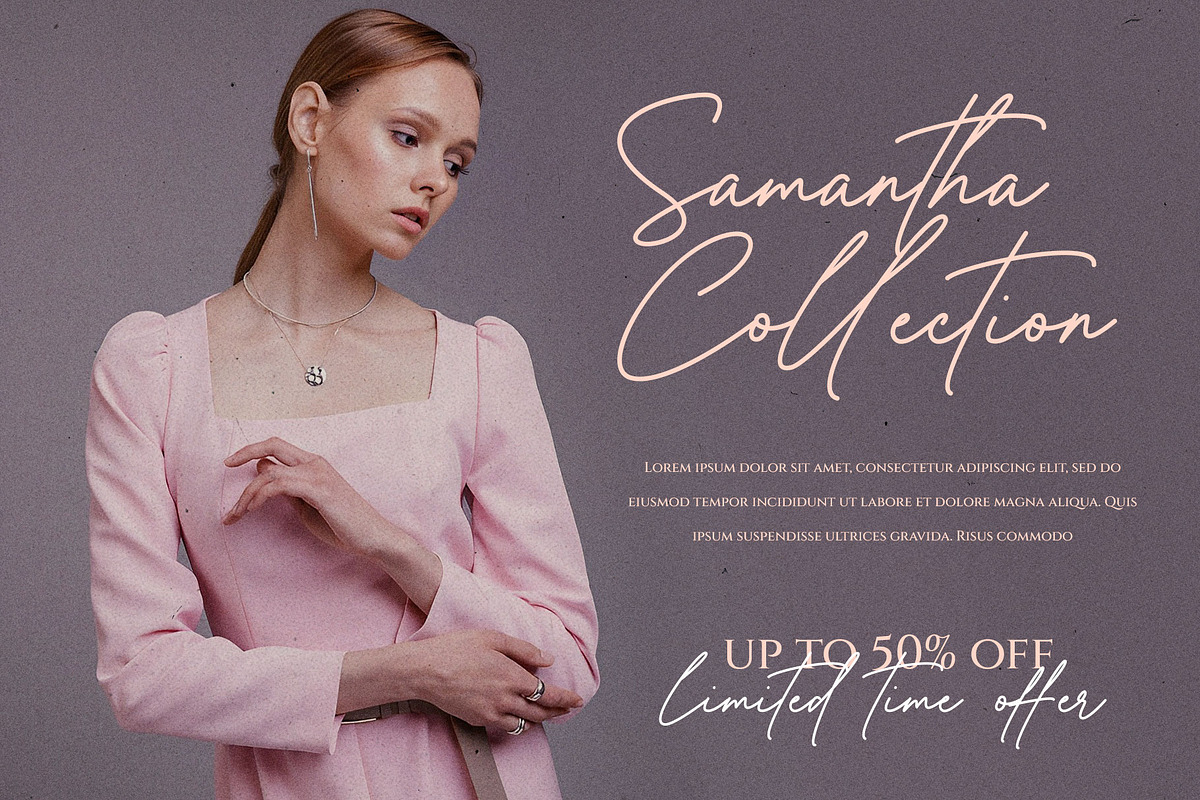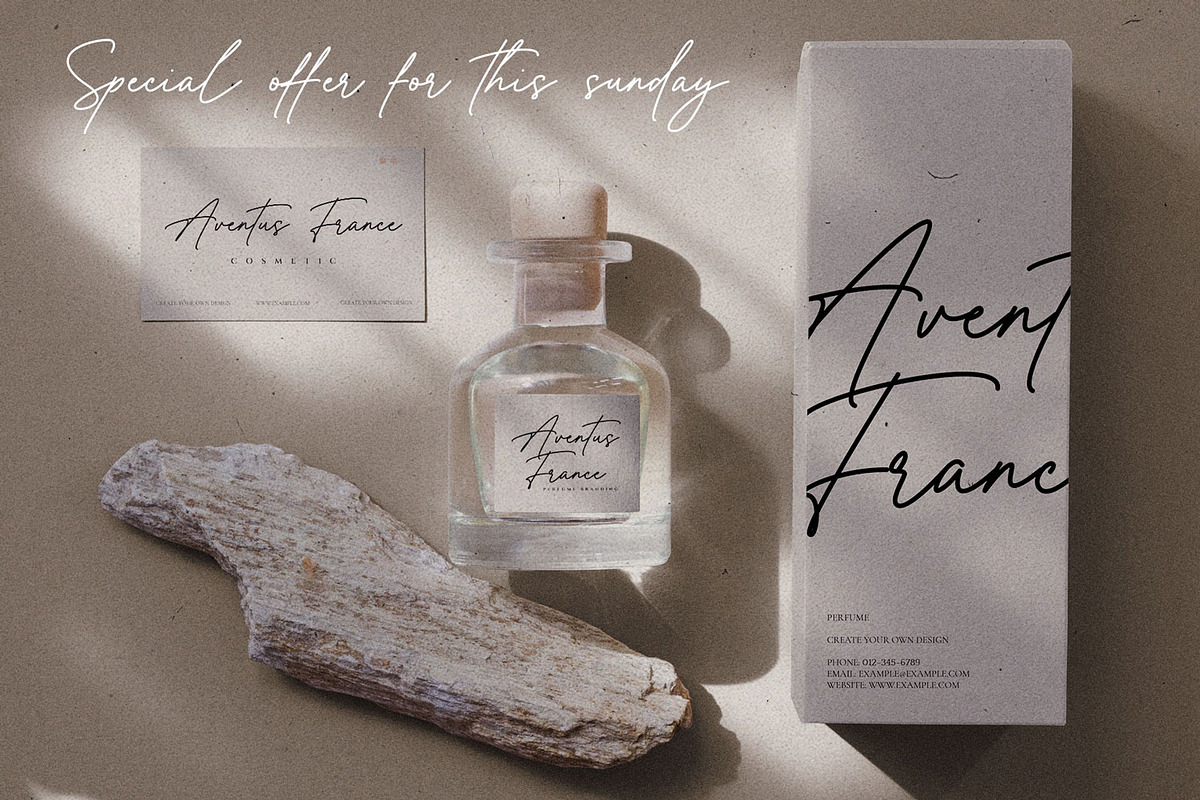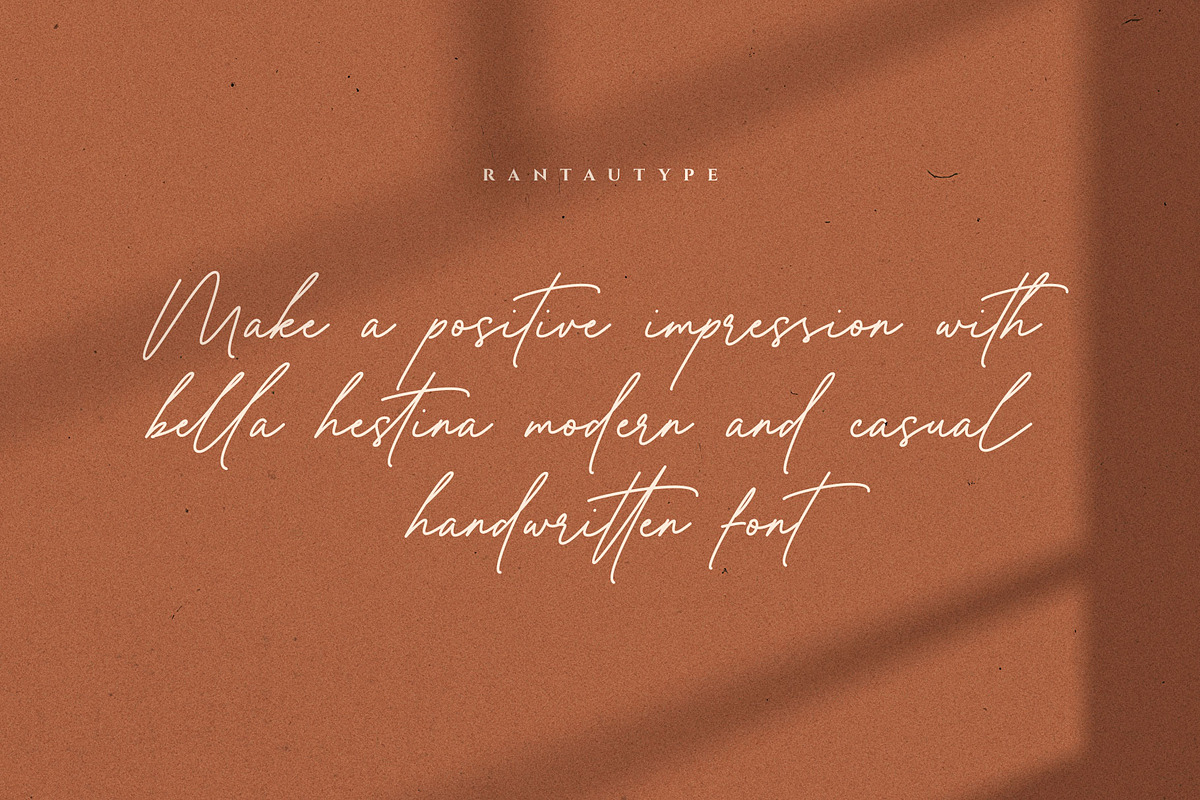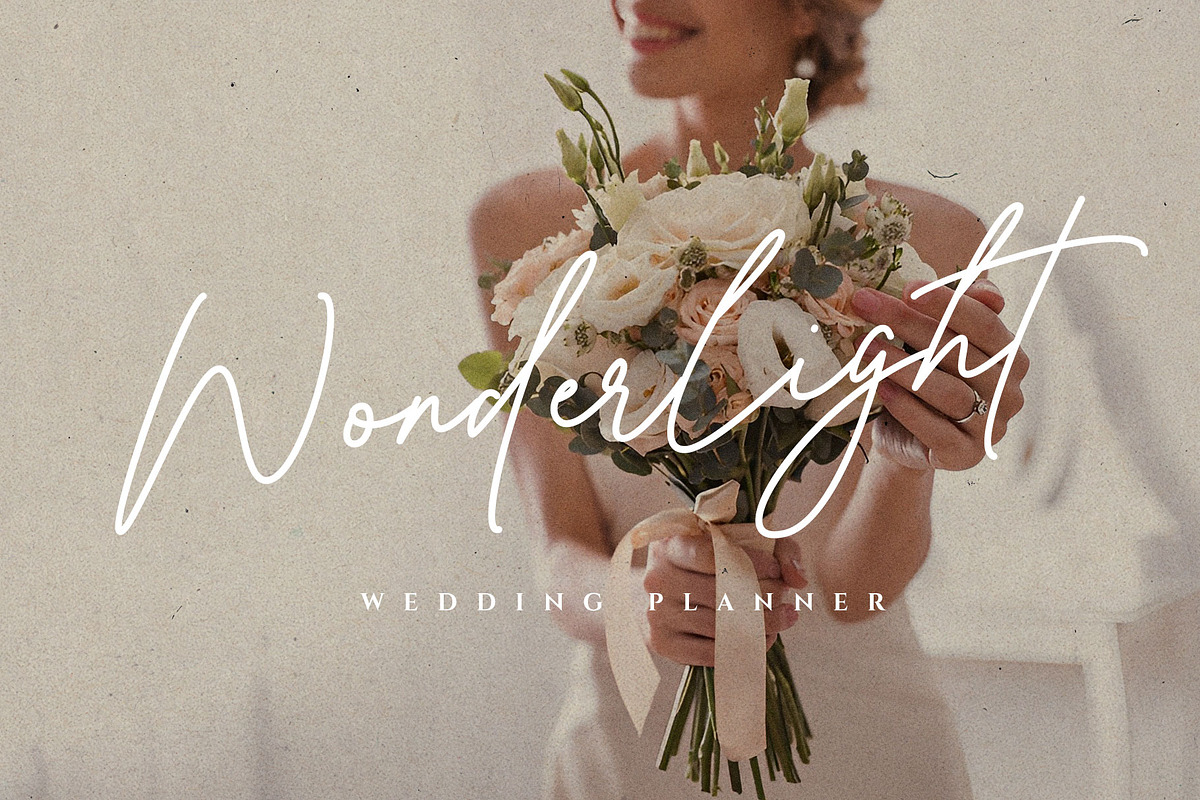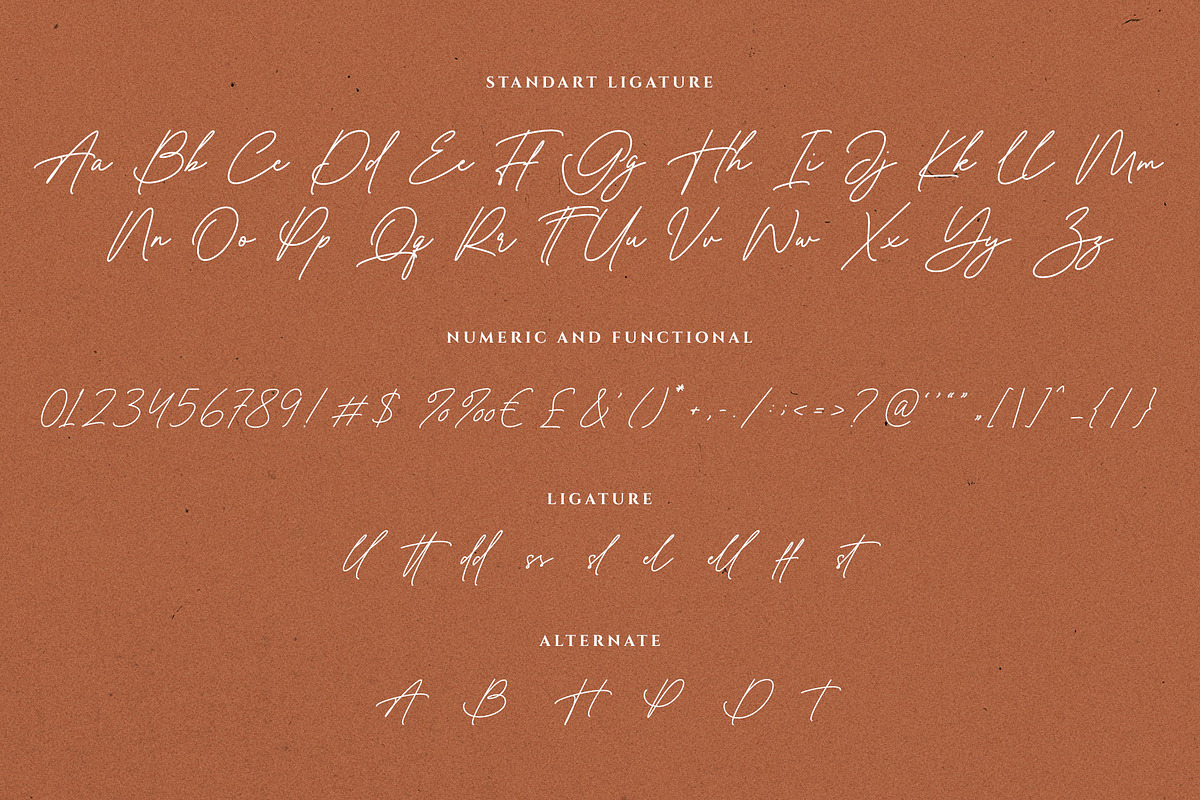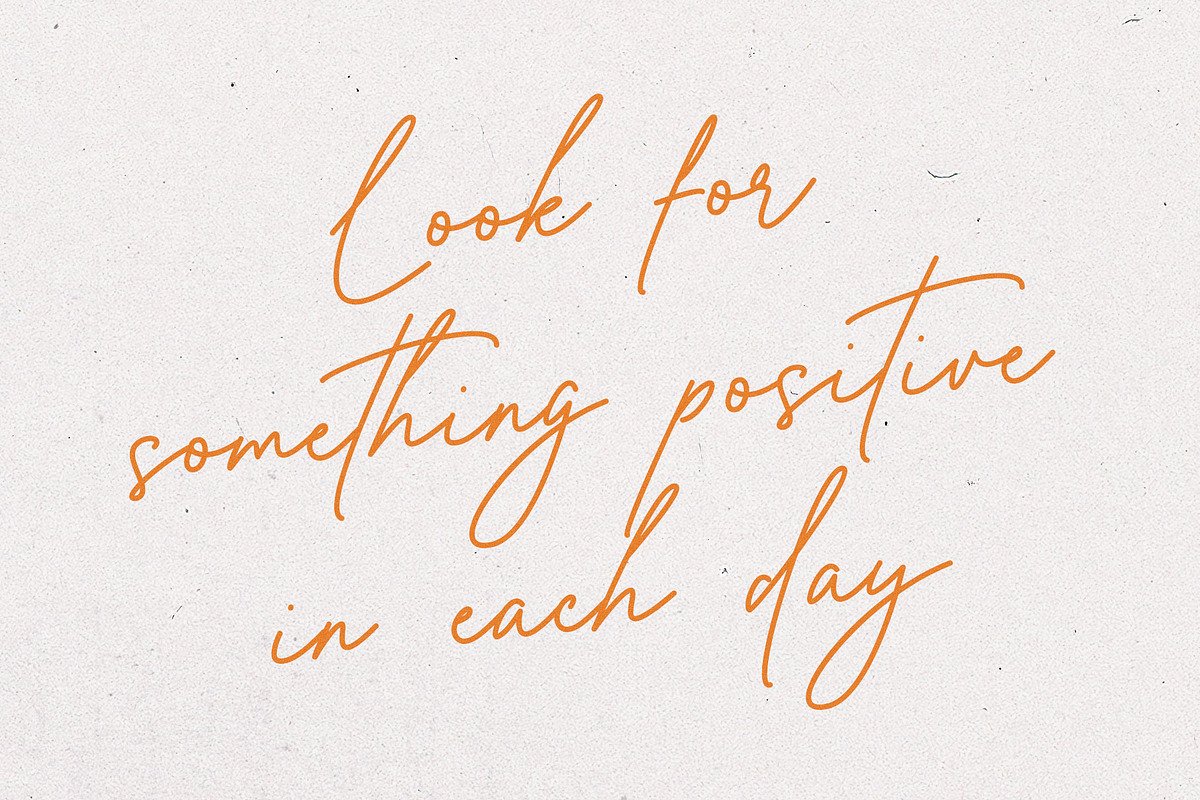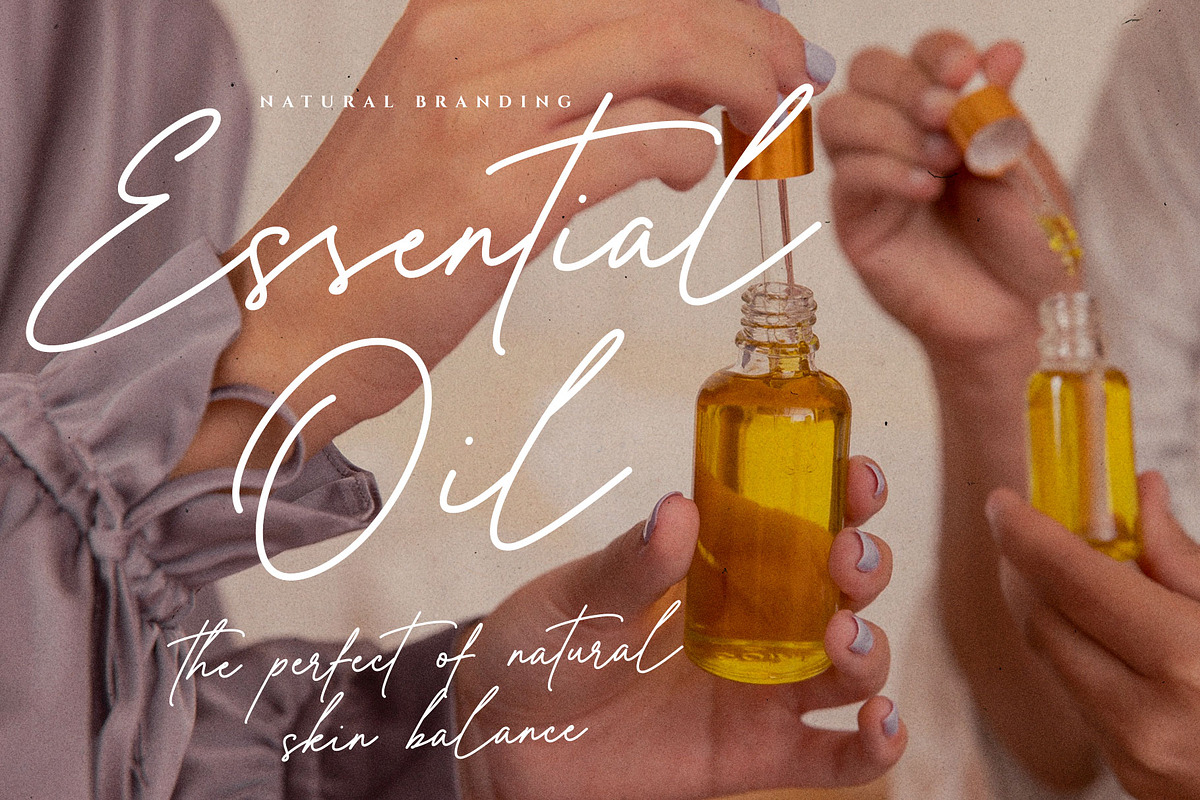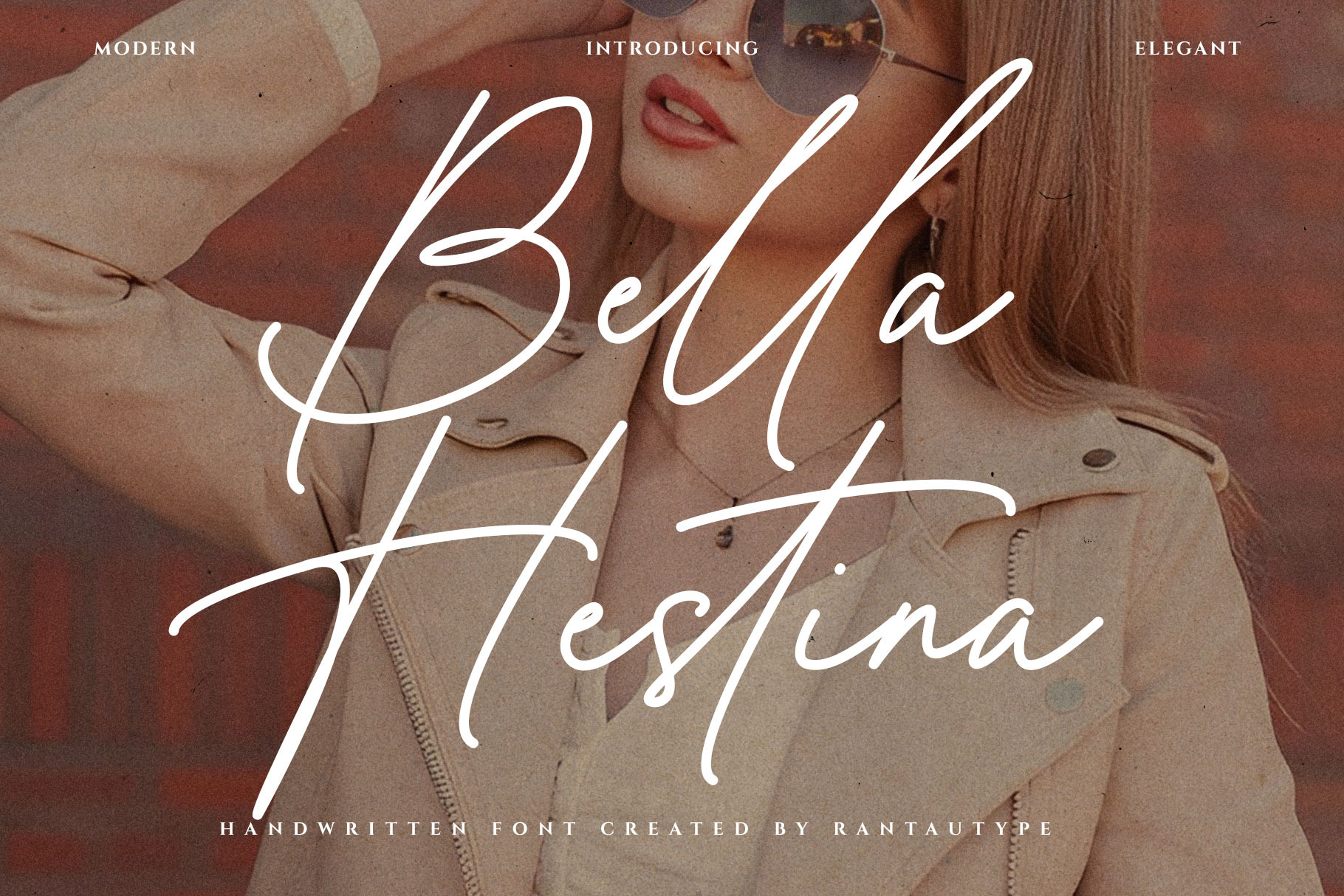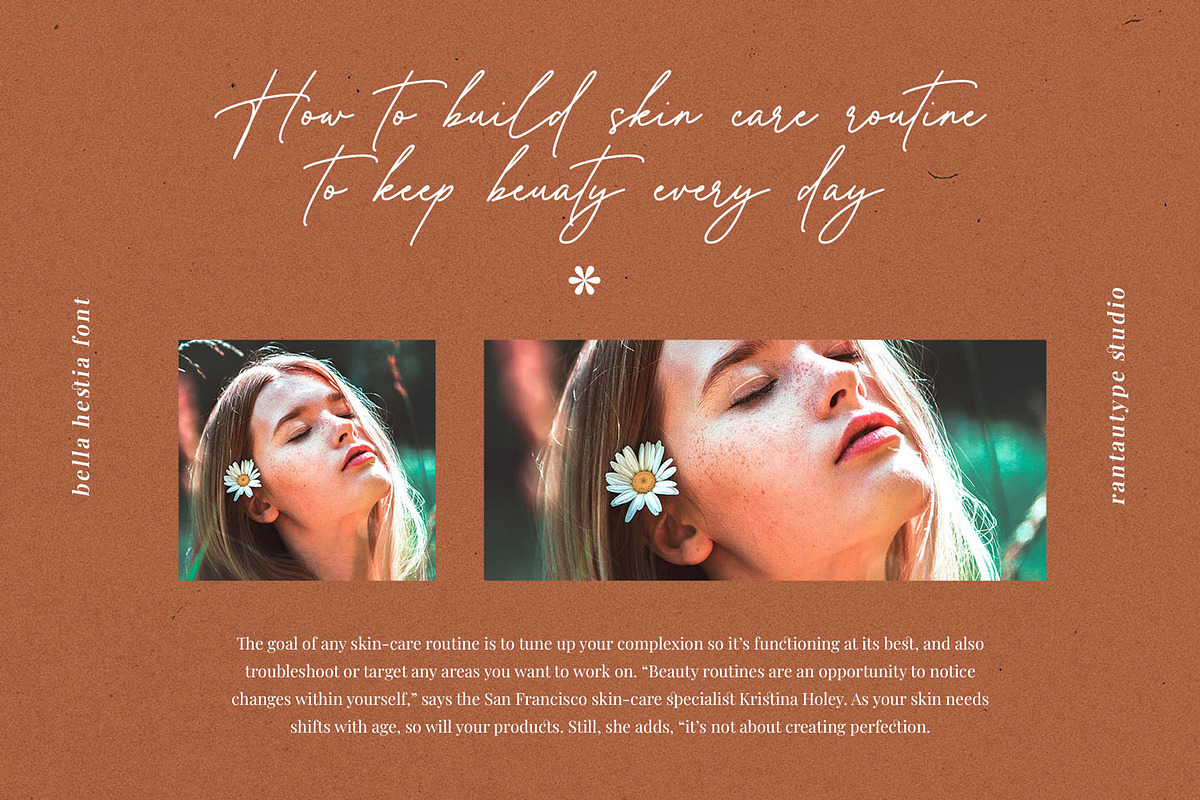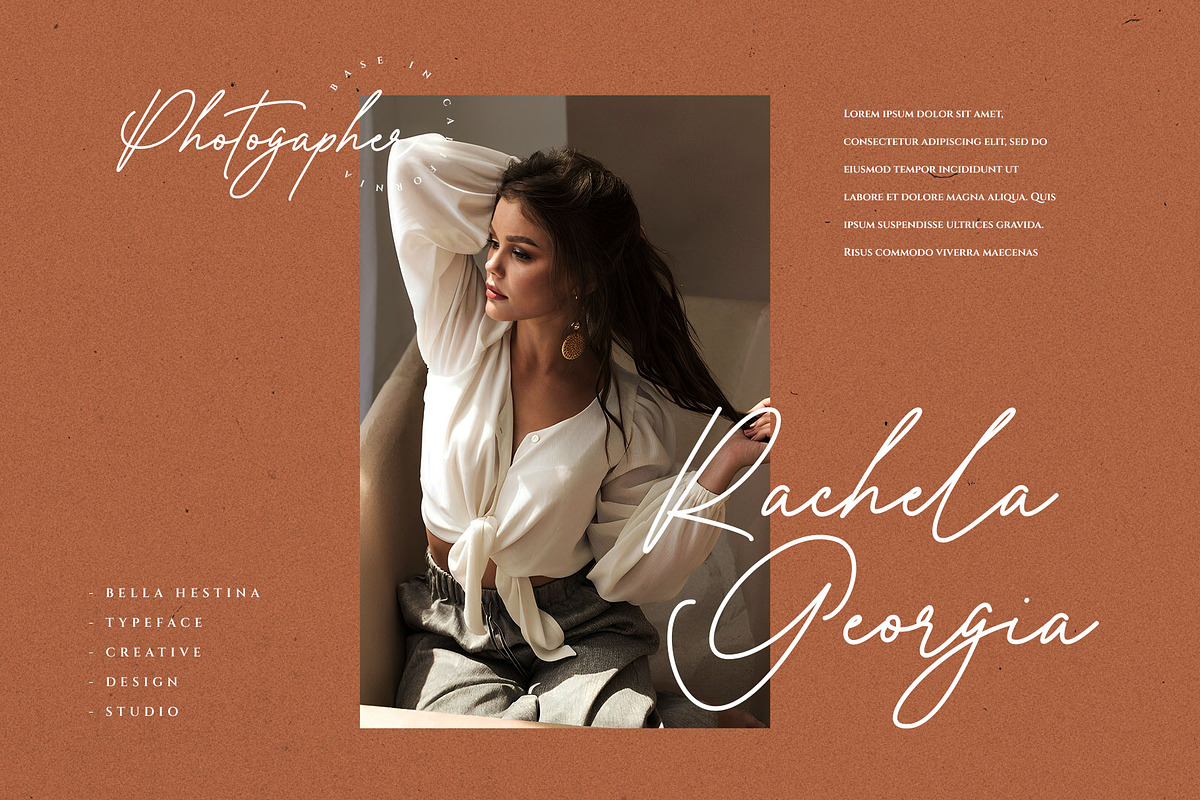
Bella Hestina Handwritten Font
Bella Hestina- modern style font which can be interpreted professional. we keep this font looks modern, minimalist, elegant, readable, stylish, catchy and easy to use.
Bella Hestina - is the great choice for watermark on photography, branding, wedding event, signature or signature logo design, quotes, album cover, magazine, business card and many other design project. Bella Hestina here to make your work to high level!!!
- Standart Glyphs
- Alternate and ligature
Fonts include Multilingual Character for: Afrikaans, Albanian, Asu, Basque, Bemba, Bena, Breton, Chiga, Cornish, Dutch, English, Estonian, Filipino, Finnish, Friulian, Galician, Gusii, Indonesian, Irish, Italian, Kabuverdianu, Kalenjin, Kinyarwanda, Luo, Luxembourgish, Luyia, Machame, North, Oromo, Portuguese, Quechua, Romansh, Rombo, Rundi, Rwa, Samburu, Sango, Sangu, Scottish, Gaelic, Sena, Shambala, Shona, Soga, Somali, Spanish, Swahili, Swedish, Swiss, German.